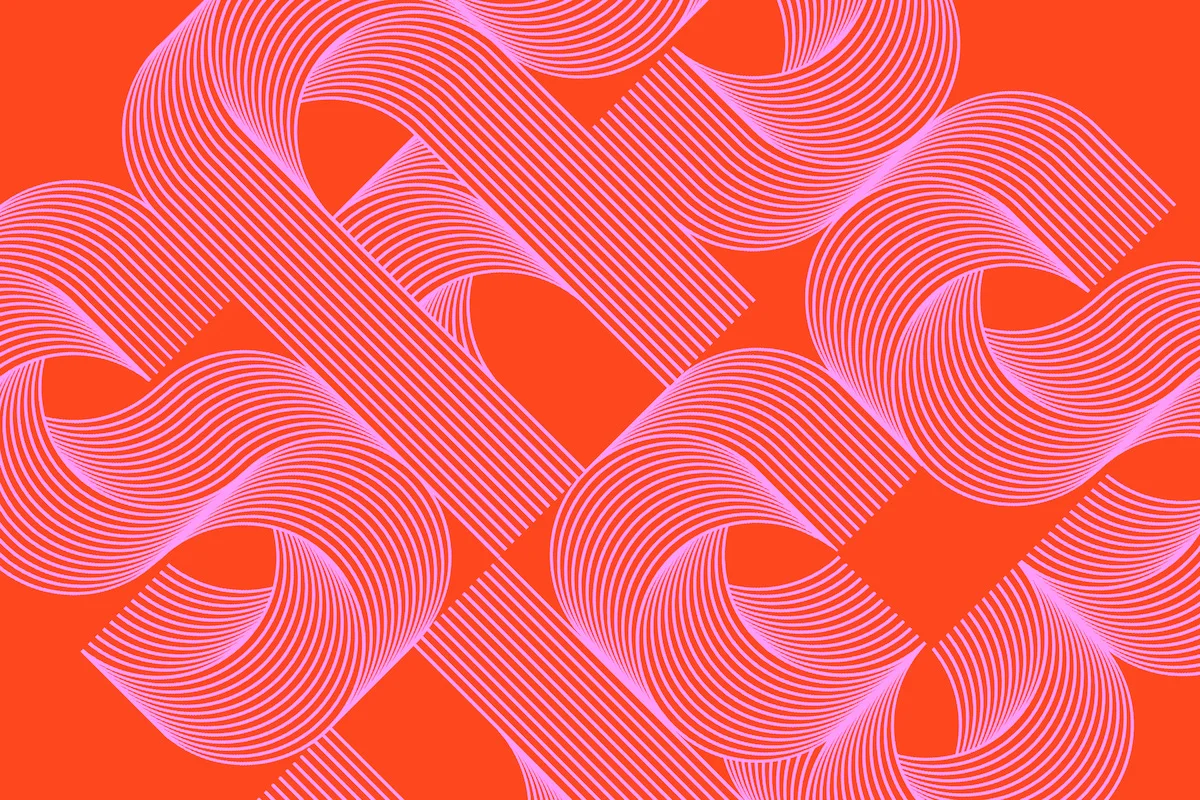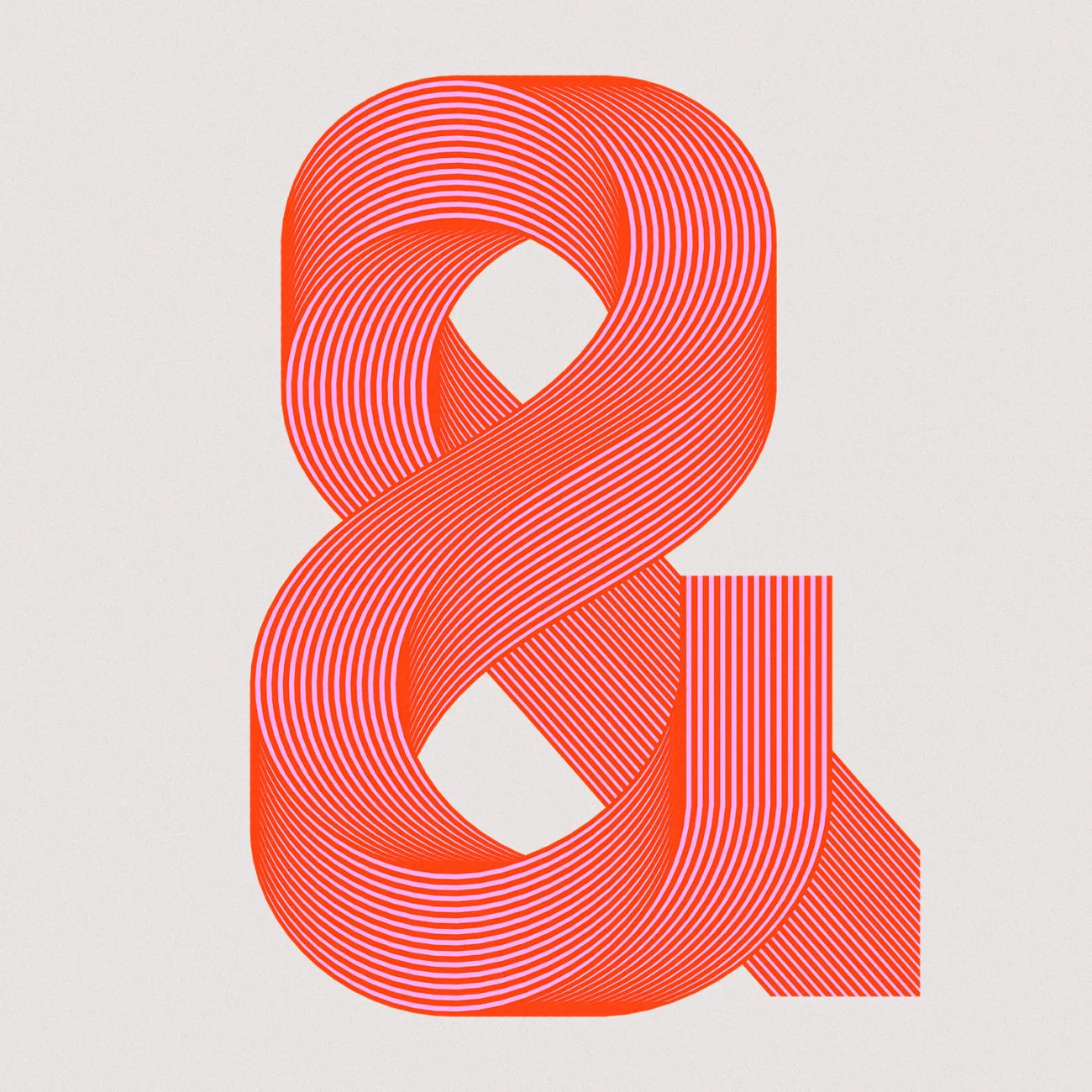
Vienna-based artist and designer, David Mascha (@davidmascha), works across illustration, typography, photography, printmaking and everything in between. The designer’s typography work feels enriched by his multidisciplinary practice and whilst extremely varied, you can rely on his pieces to be consistently bold, well crafted and refined. Outside of personal, self-initiated art projects and collaborations, David has worked for over 10 years with top advertising agencies for leading brands all over the world.
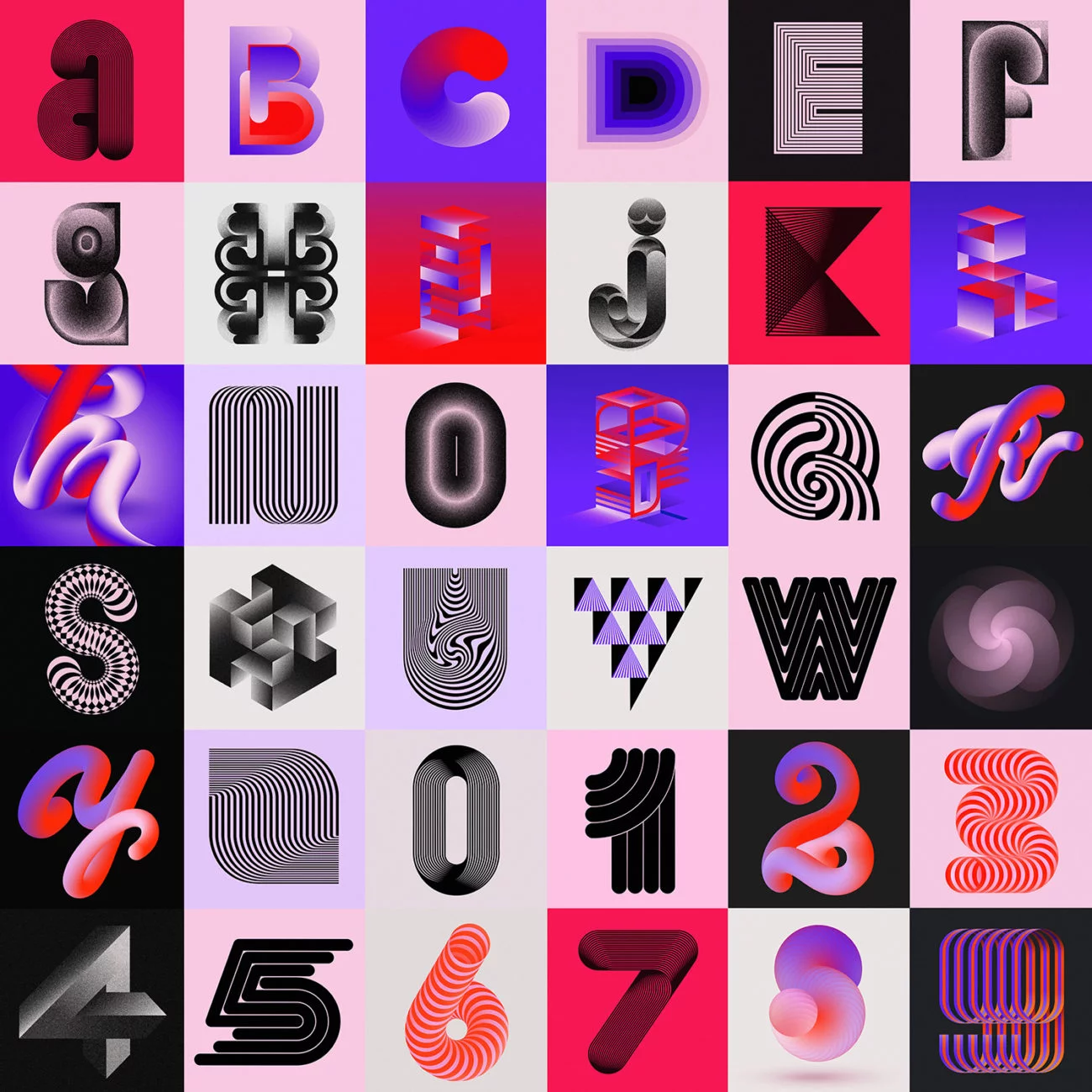
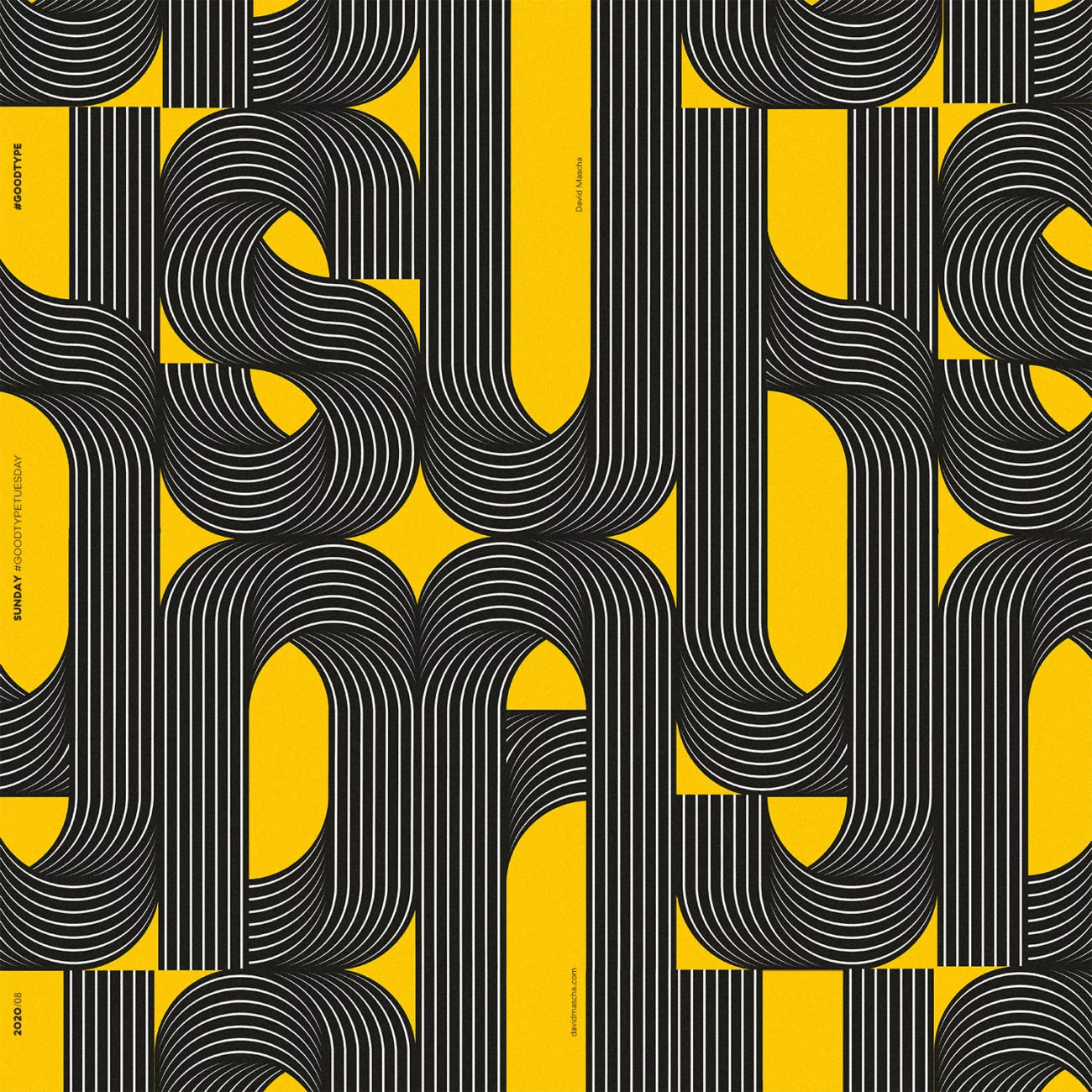
Thanks to the 36 Days of Type (@36daysoftype) challenge, the designer has recently been learning new tricks in Adobe Illustrator and delving deeper into typographic art, through a collection of explorative type works. ‘After learning a bunch of new things and techniques in Illustrator during the 36 Days of Type challenge, I started to focus a little more on blends and brushes combined with type’, David explains, adding ‘currently, I am working on two alphabets using the multiple lines effect I started to develop in Illustrator’. David’s type experiments have gained recognition elsewhere too, as the designer tells us, ‘I also joined the Goodtype Tuesday challenge (@goodtype), where my ‘Say Yes’ piece was featured, which brought a little buzz to my account.’
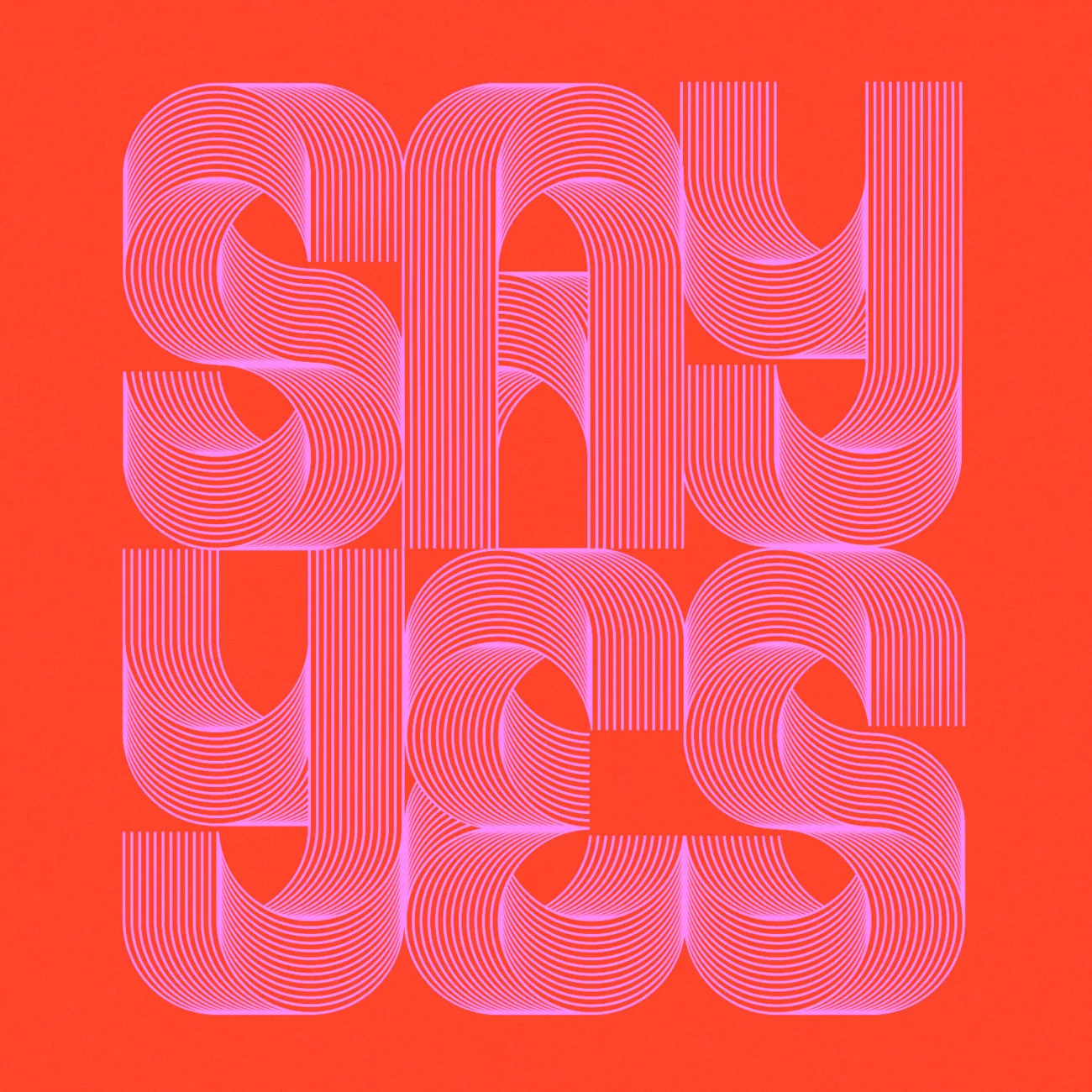
David’s stunning multiple lines effect can be seen in his current series of 8’s work, which explores the flow of the number through textural, geometrical explorations of form. ‘It’s my favourite number because of its symmetry and simplicity’, he explains.
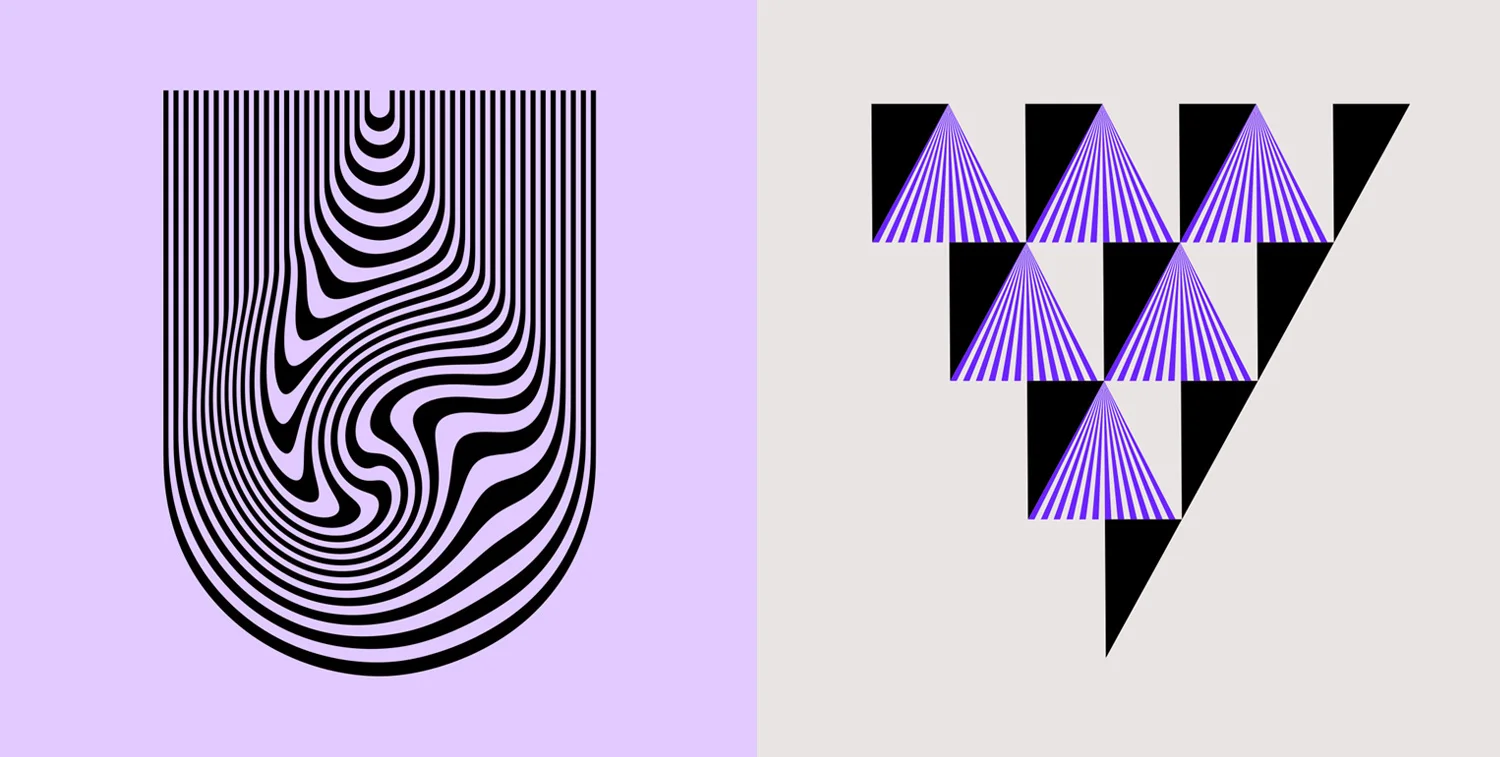
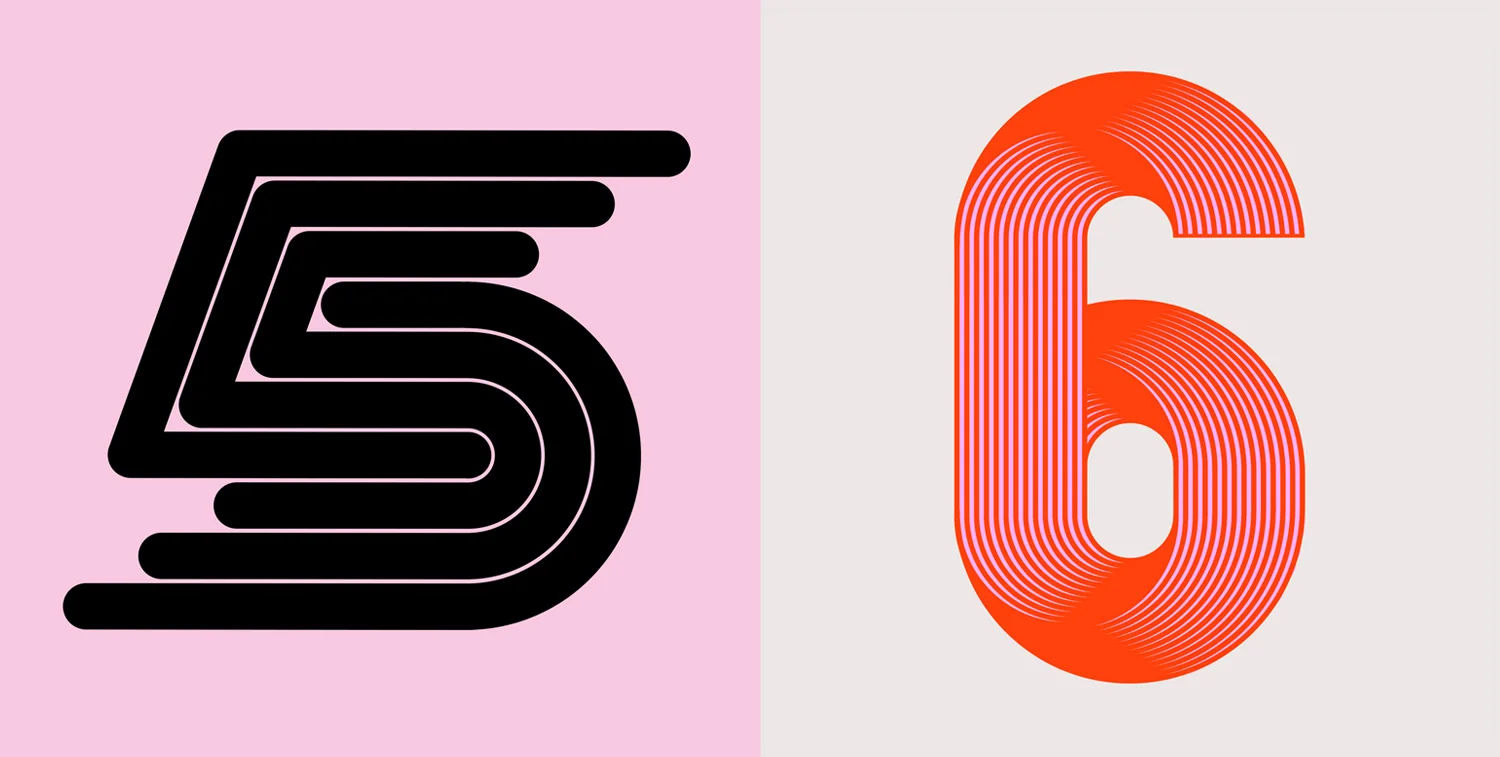
Another exciting project of David’s is his collaboration with Pressink. Run by his girlfriend in Bratislava, the letterpress studio collaborated with David on a series of high quality handmade letterpress prints; ranging from typography to geometric and Op Art inspired designs. ‘Now is the Right Time’ was the first design of the series, upon which David comments, ‘to me it means living ‘here and now’, if you‘re thinking about doing something, now is the time for it!’ They are currently working on new additions to the series, which will soon be available through David’s online shop.
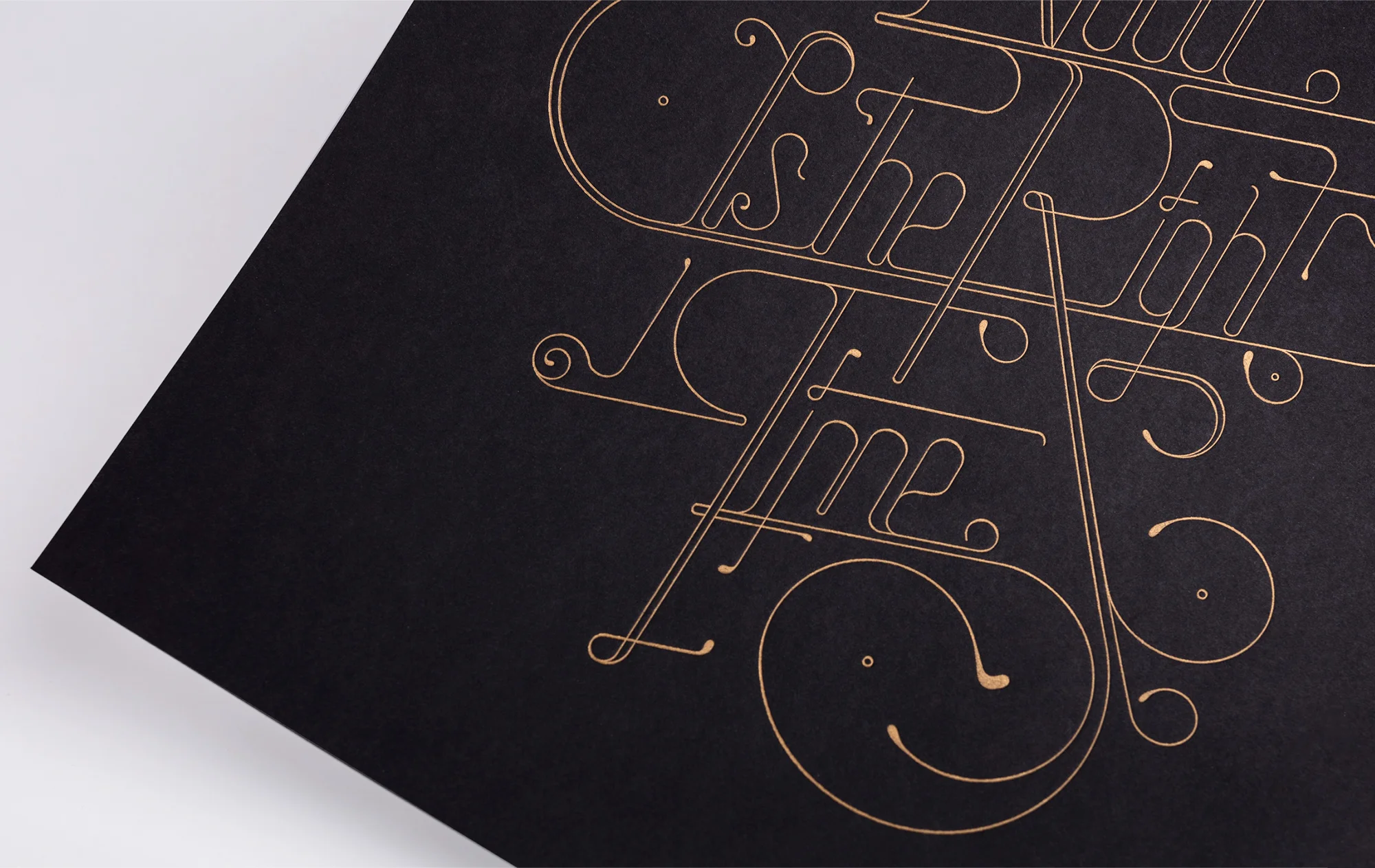
We also particularly loved David’s 36 Days of Type project, on which the artists shared: ‘Joining the 36 days of type challenge helped me a lot to get back into my creative groove and also timing was perfect, right before corona started to hit. Creating something new everyday, pushing boundaries, and experimenting with new and different styles was a great, challenging experience and kept me sane during lockdown. I was working in a couple directions such as, 3D, isometric, Op Art and blend effects mainly in illustrator, but still trying to maintain a certain aesthetic that can be seen throughout the whole series. I didn’t want to limit myself to just one particular style, it was more about having the freedom to do whatever came to my mind each day.’